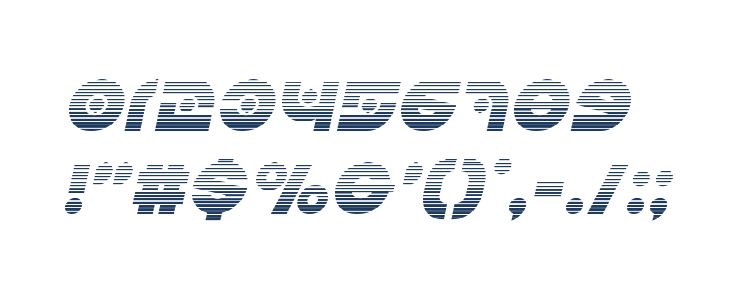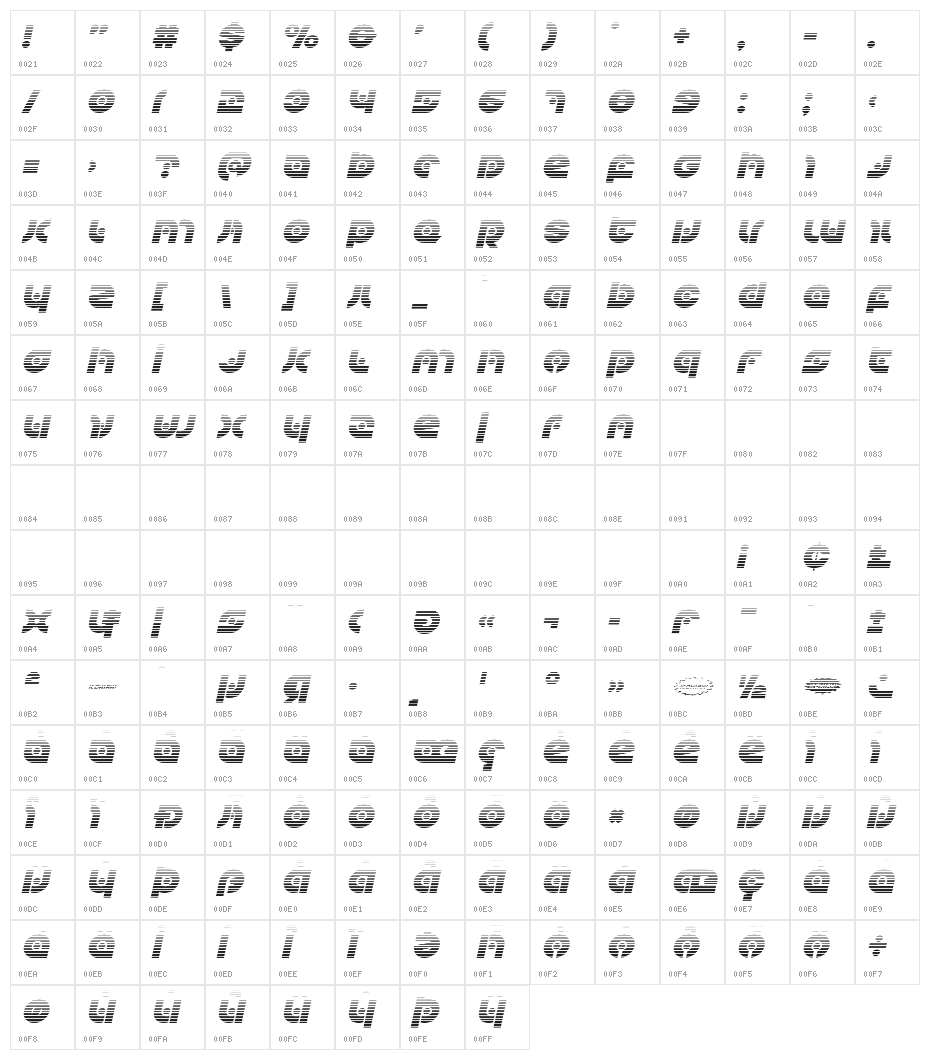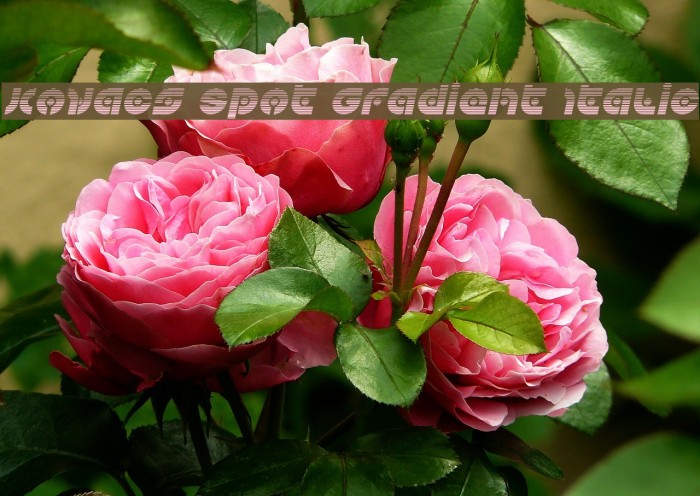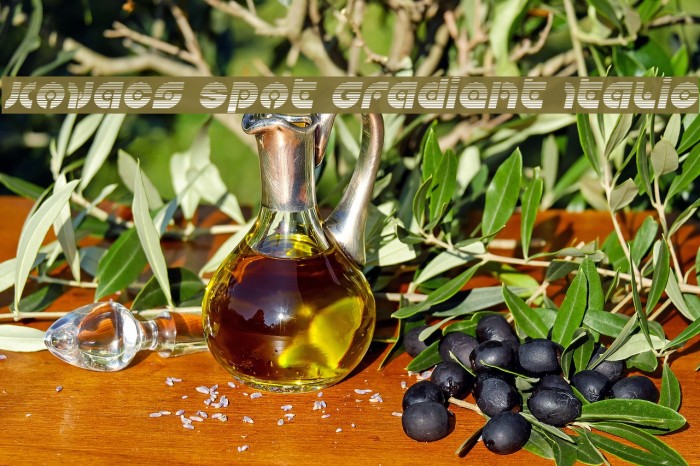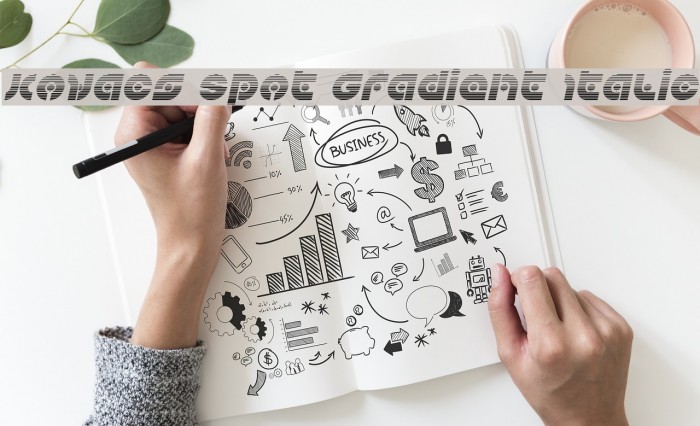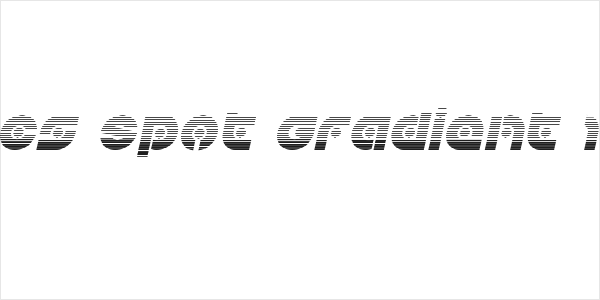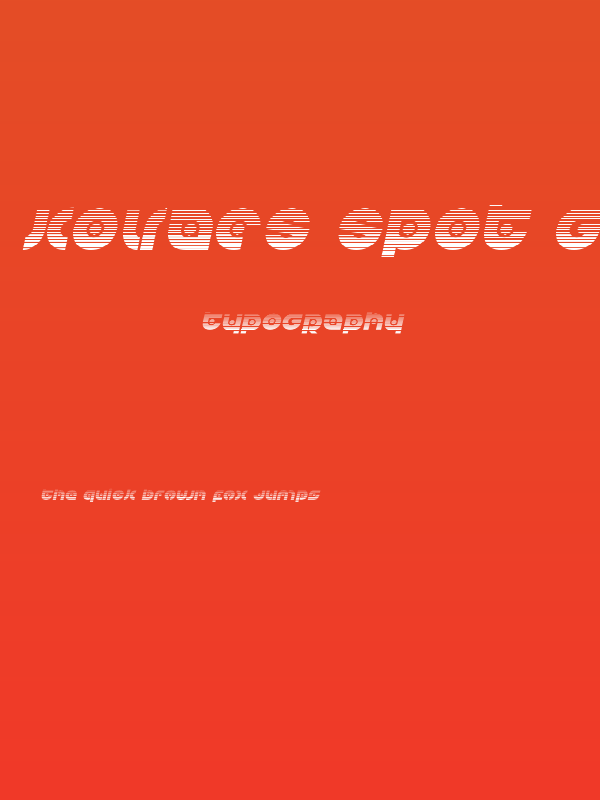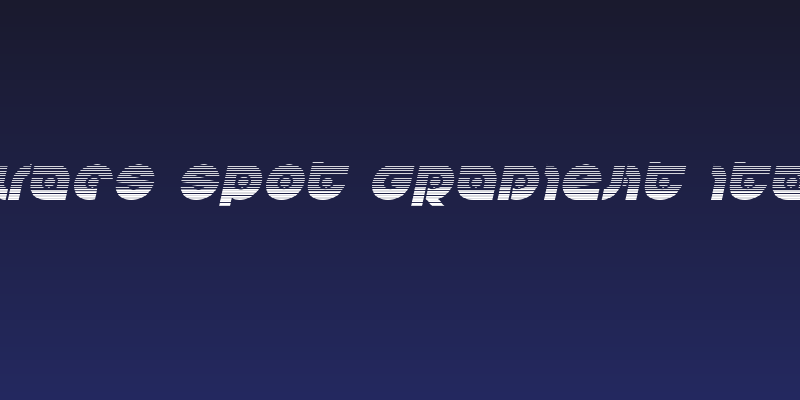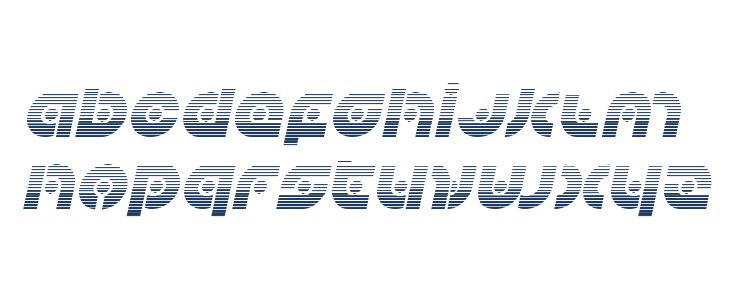
Kovacs Spot Gradient Italic Font
Kovacs Spot Gradient Italic Description
This font features a unique gradient effect created by horizontal lines that form each character, giving it a dynamic and modern appearance. The italic slant adds a sense of motion and fluidity, while the bold, geometric shapes ensure strong visibility. Each letter is crafted with precision, maintaining a consistent pattern that enhances its decorative appeal. The font's distinct style makes it stand out, ideal for projects that require a contemporary and eye-catching design. The combination of boldness and gradient lines creates a striking visual impact, making it suitable for various creative applications.